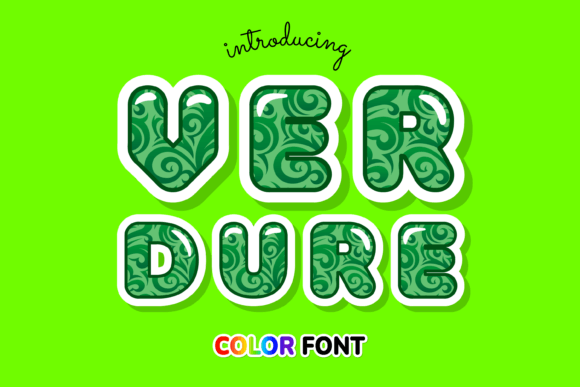
Calling all discerning design enthusiasts! Prepare to be mesmerized by Verdure Font, a chromatic masterpiece that will transform your creative endeavors into breathtaking visual symphonies. This extraordinary color font, meticulously crafted by JUSTTYPE, merges the allure of nature with the precision of typography, resulting in a design that's both captivating and versatile.
Embark on a sensory journey as Verdure Font enchants your designs with a tapestry of botanical elements. Its intricate embellishments, reminiscent of delicate flora and verdant landscapes, will infuse your projects with an organic elegance that's sure to leave an indelible impression. Whether you're a seasoned graphic designer, a budding crafter, or simply someone who appreciates the beauty of typography, Verdure Font is the perfect companion for unleashing your creativity.
Step into a world where nature and technology harmoniously coexist. Verdure Font is a color font that transcends the boundaries of ordinary typography. Its vibrant hues and intricate details will captivate your audience, leaving them in awe of your design prowess. With Verdure Font, you'll unlock a new realm of creative expression, transforming your ideas into captivating visuals that are sure to leave a lasting impression.